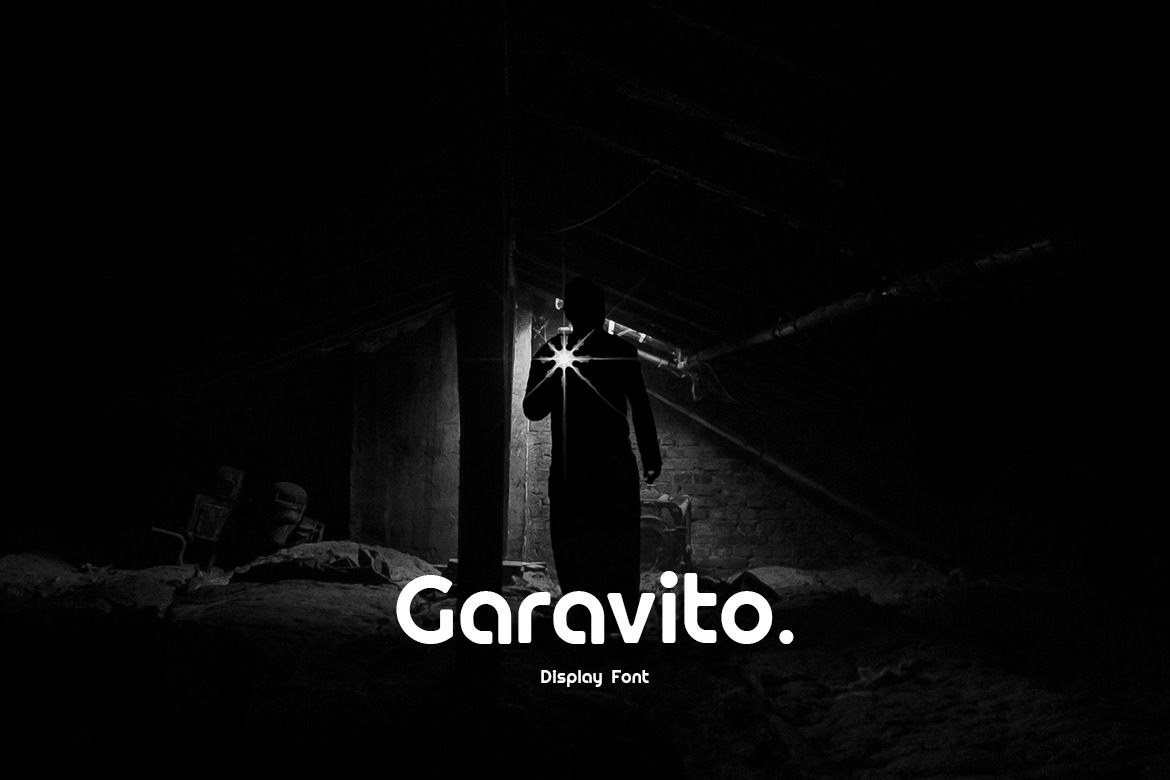
Garavito Display & WebFont
Garavito - Display Typeface
Introducing our brand new Display Typeface Garavito - Display. This beautiful and Creative Font suitable for Film Posters, headlines, Block letter, Subheading, Logo Designs, Big Banners Decorative Typography and Web Designs.